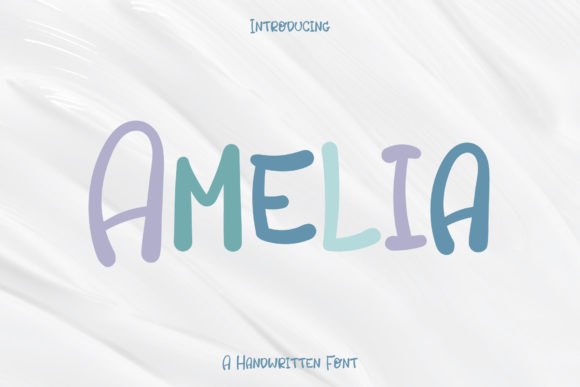
The Amelia Font: A Whimsical Script to Elevate Your Designs
I’ll never forget the time I was working on a project for a client who wanted a font that was both friendly and elegant. I had spent hours scouring the internet for the perfect match, but nothing seemed quite right. That was until I stumbled upon the Amelia font. With its relaxed theme and whimsical script, it was love at first sight! In this article, I’ll share my experience with Amelia, its features, and how to make the most of it in your designs.
An Honest Review of Amelia Font
- ✨ Friendly and approachable style that’s perfect for a wide range of projects
- 🎉 Whimsical and playful, yet still elegant and sophisticated
- 🌈 Versatile and adaptable to different design contexts
While Amelia is an excellent font, there are a few things to keep in mind:
- 🤔 Some characters may appear a bit narrow or condensed, which can affect the overall flow of text
- ⚠️ Limited use of uppercase letters, which may not be ideal for certain design applications
A Practical Guide to Using Amelia Font
The Story Behind Amelia Font
Amelia was designed with the intention of creating a friendly, approachable script font that would be perfect for a wide range of design applications. The designer, inspired by classic scripts and modern typography, aimed to create a font that was both elegant and whimsical.
| Author | Wanida Toffy |
Q: What type of projects is Amelia best suited for?
A: Amelia is a versatile font that’s suitable for a wide range of projects, from branding and advertising to packaging and web design.
Q: Is Amelia a difficult font to read?
A: No, Amelia is highly legible, even at smaller font sizes, making it perfect for body text and other long-form content.
Q: Can I use Amelia with other fonts?
A: Yes, Amelia can be paired with a variety of fonts to create a unique and visually appealing design.